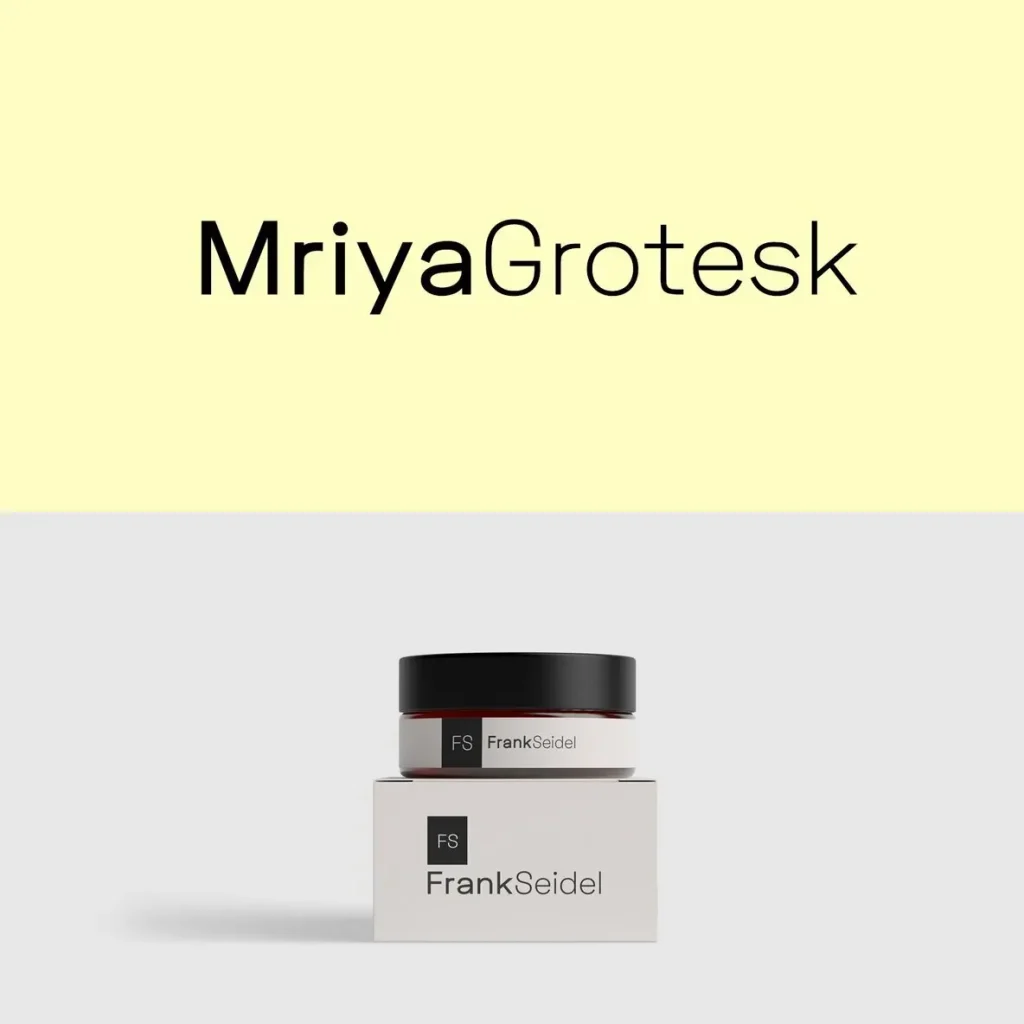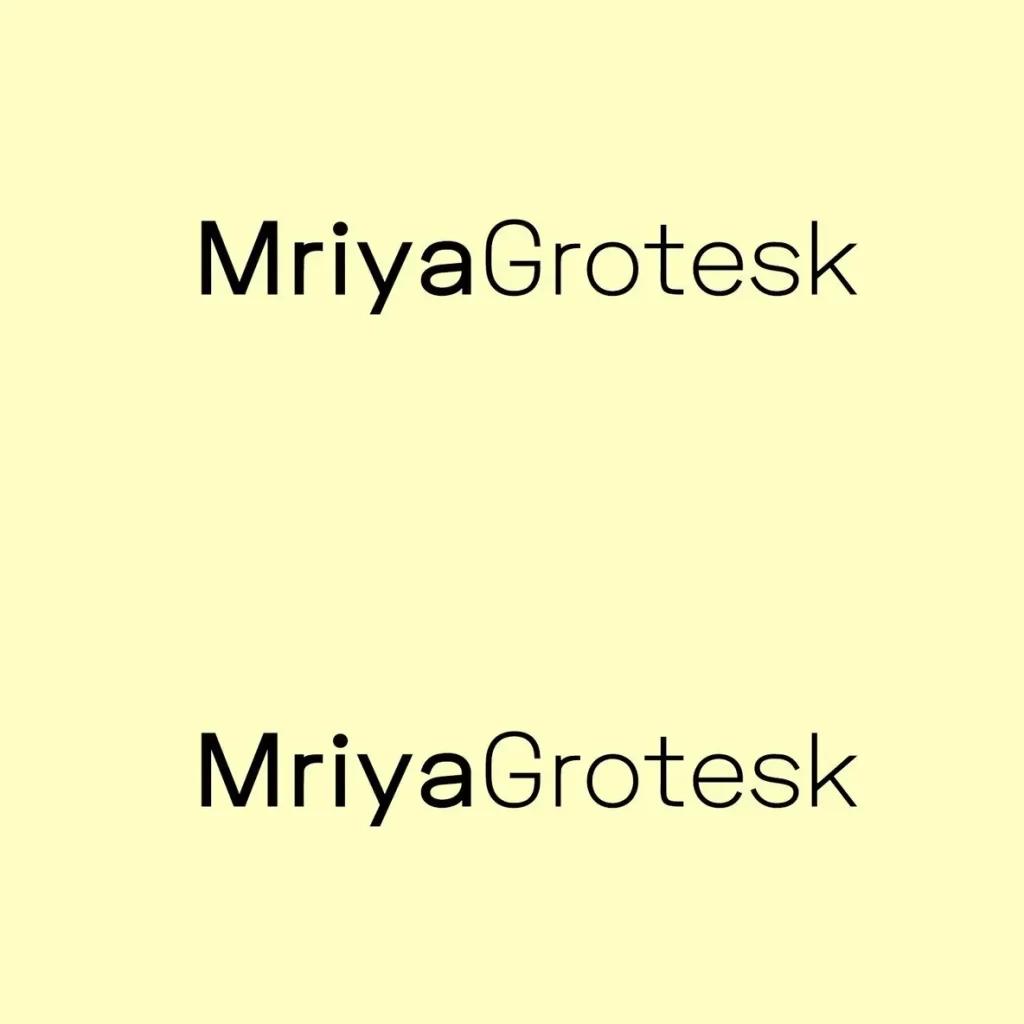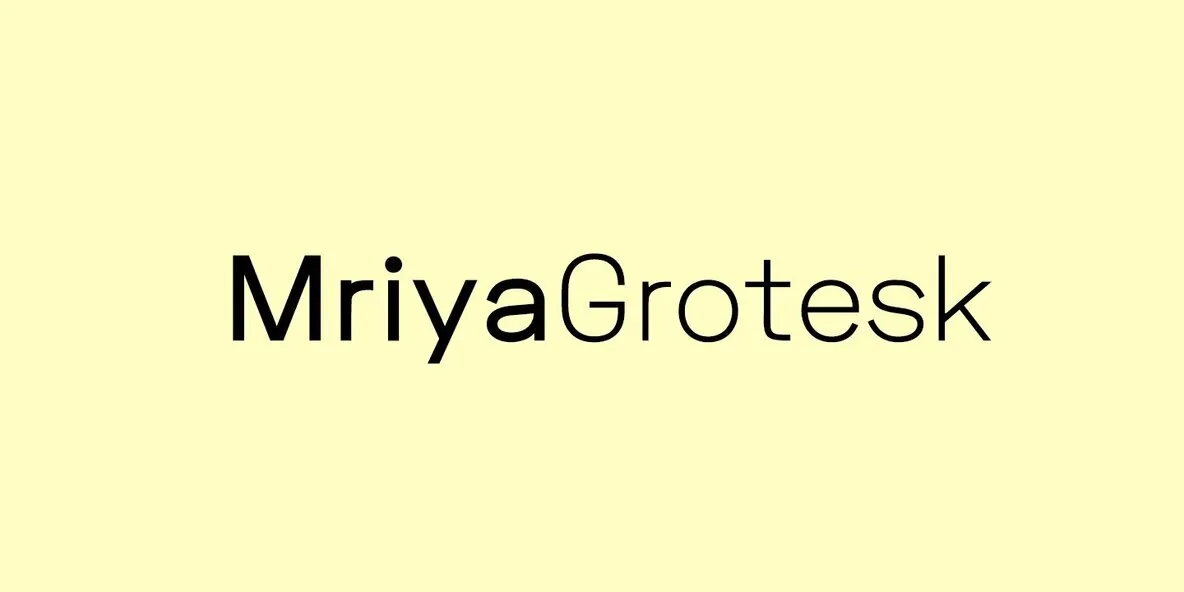
Mriya Grotesk — Clean Grotesque Presence
Mriya Grotesk is a modern sans-serif typeface with a clean structure, balanced proportions, and a refined grotesque character. Its simple yet distinctive letterforms support excellent readability while giving text a contemporary visual style. The result is a font that feels clear, composed, and suitable for professional communication.
Built for a wide range of design settings, Mriya Grotesk works well in branding systems, editorial layouts, websites, applications, corporate identities, and professional design projects. Its restrained grotesque tone gives designers a dependable typographic voice for both digital and print use, while its readable forms keep content direct and accessible.